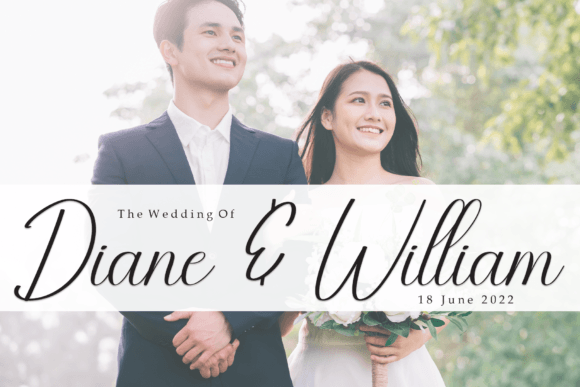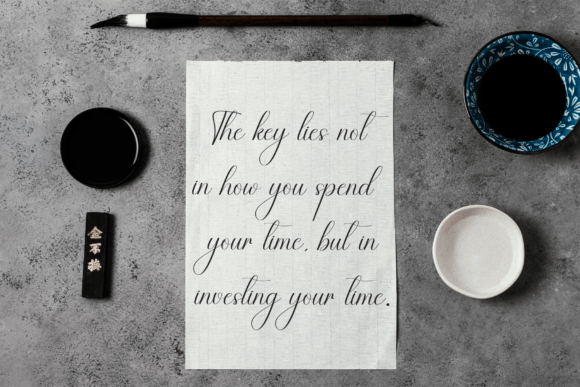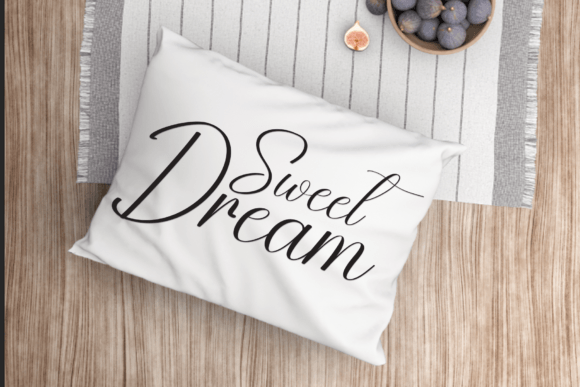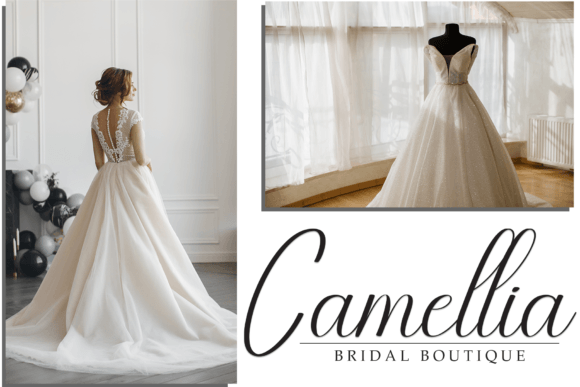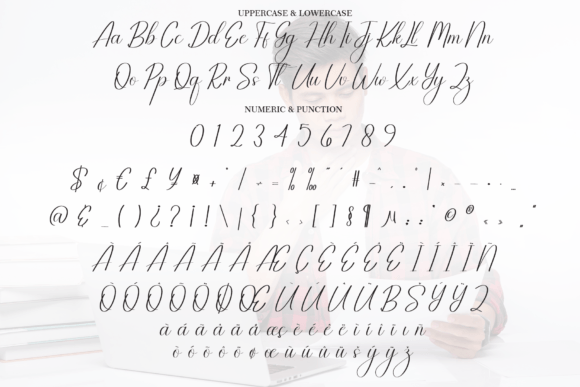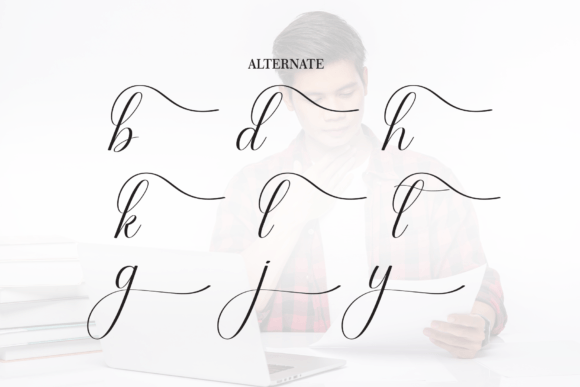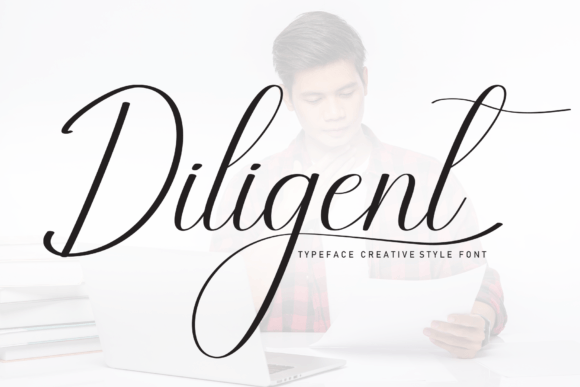
Diligent Font: The Sweet and Friendly Handwritten Font for Your Creative Projects
Are you looking for a font that can add a personal touch to your designs? Look no further than the Diligent Font. This sweet and friendly handwritten font is perfect for creating beautiful wedding invitations, cards, and other designs that require a lovely touch. In this article, we’ll explore the features and benefits of the Diligent Font and why it’s a must-have for designers and crafters.
What is Diligent Font?
Diligent Font is a fresh and casual handwritten font that’s designed to bring a touch of warmth and personality to your designs. Its sweet and friendly style makes it perfect for a variety of creative projects, from wedding invitations and cards to posters and social media graphics. The font’s unique and elegant style is sure to capture the attention of your audience and leave a lasting impression.
Key Features of Diligent Font
- Sweet and Friendly Style: Diligent Font has a sweet and friendly style that’s perfect for creating designs that require a personal touch.
- Fresh and Casual: The font’s fresh and casual style makes it ideal for a variety of creative projects, from formal to informal designs.
- Handwritten: Diligent Font is a handwritten font that’s designed to mimic the look and feel of handwritten text.
- Elegant and Unique: The font’s elegant and unique style makes it perfect for creating designs that stand out from the crowd.
Benefits of Using Diligent Font
There are many benefits to using Diligent Font in your designs. Here are a few:
- Adds a Personal Touch: Diligent Font adds a personal touch to your designs, making them more relatable and engaging.
- Perfect for Wedding Invitations and Cards: The font’s sweet and friendly style makes it perfect for creating beautiful wedding invitations and cards.
- Versatile: Diligent Font is versatile and can be used for a variety of creative projects, from formal to informal designs.
How to Use Diligent Font
Using Diligent Font is easy. Here are a few tips:
- Pair it with Other Fonts: Pair Diligent Font with other fonts to create a unique and interesting design.
- Use it for Headings and Titles: Use Diligent Font for headings and titles to add a personal touch to your designs.
- Experiment with Different Colors: Experiment with different colors to find the perfect combination for your design.
Who Can Use Diligent Font?
Diligent Font is perfect for a variety of designers and crafters, including:
- Wedding Designers: Wedding designers can use Diligent Font to create beautiful wedding invitations, cards, and other wedding-related designs.
- Graphic Designers: Graphic designers can use Diligent Font to add a personal touch to their designs, from posters to social media graphics.
- Crafters: Crafters can use Diligent Font to create beautiful handmade cards, invitations, and other craft projects.
Diligent Font is a sweet and friendly handwritten font that’s perfect for adding a personal touch to your designs. Its fresh and casual style makes it ideal for a variety of creative projects, from wedding invitations and cards to posters and social media graphics. With its elegant and unique style, Diligent Font is sure to capture the attention of your audience and leave a lasting impression. So why wait? Download Diligent Font today and start creating beautiful designs that stand out from the crowd!